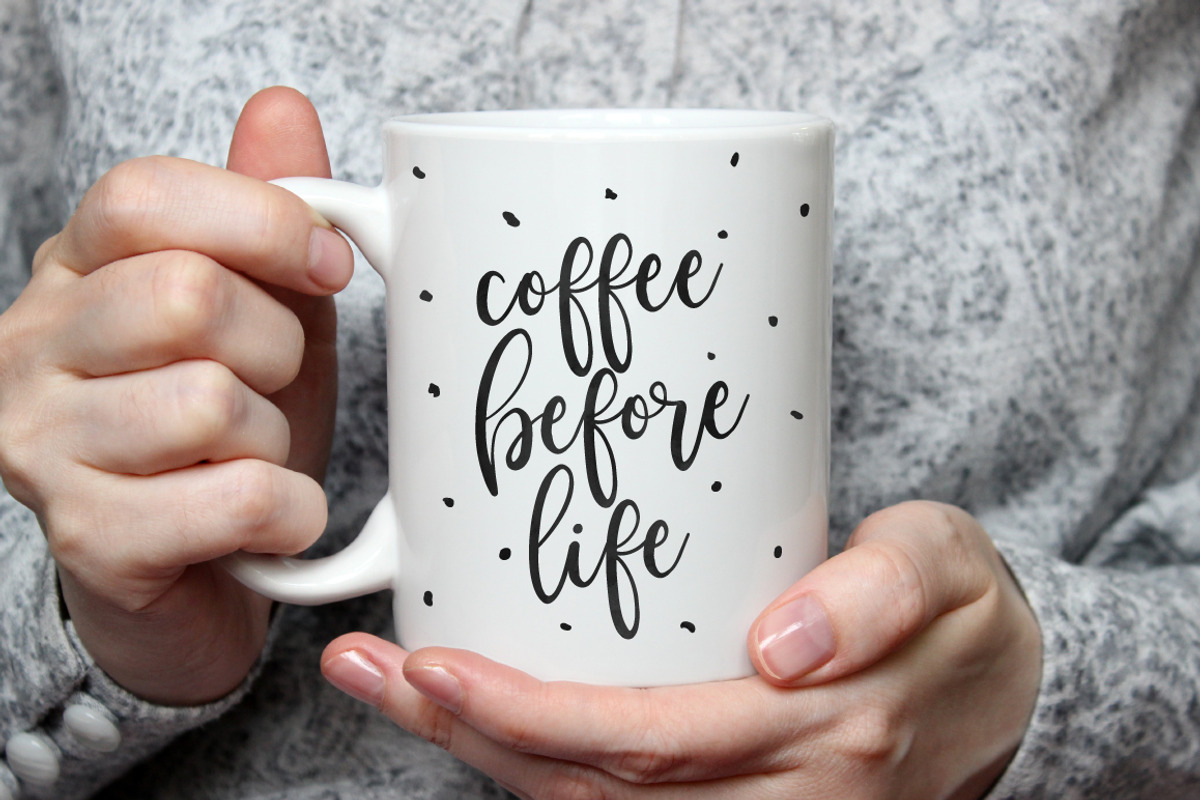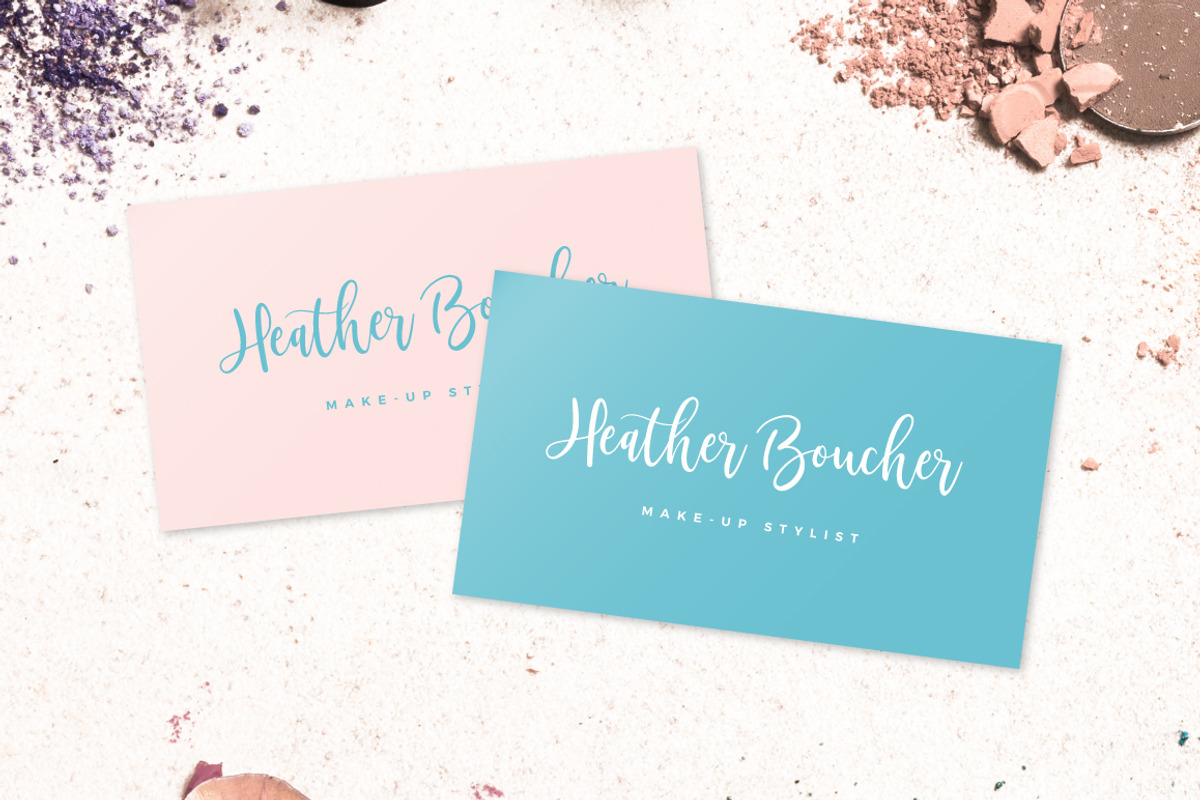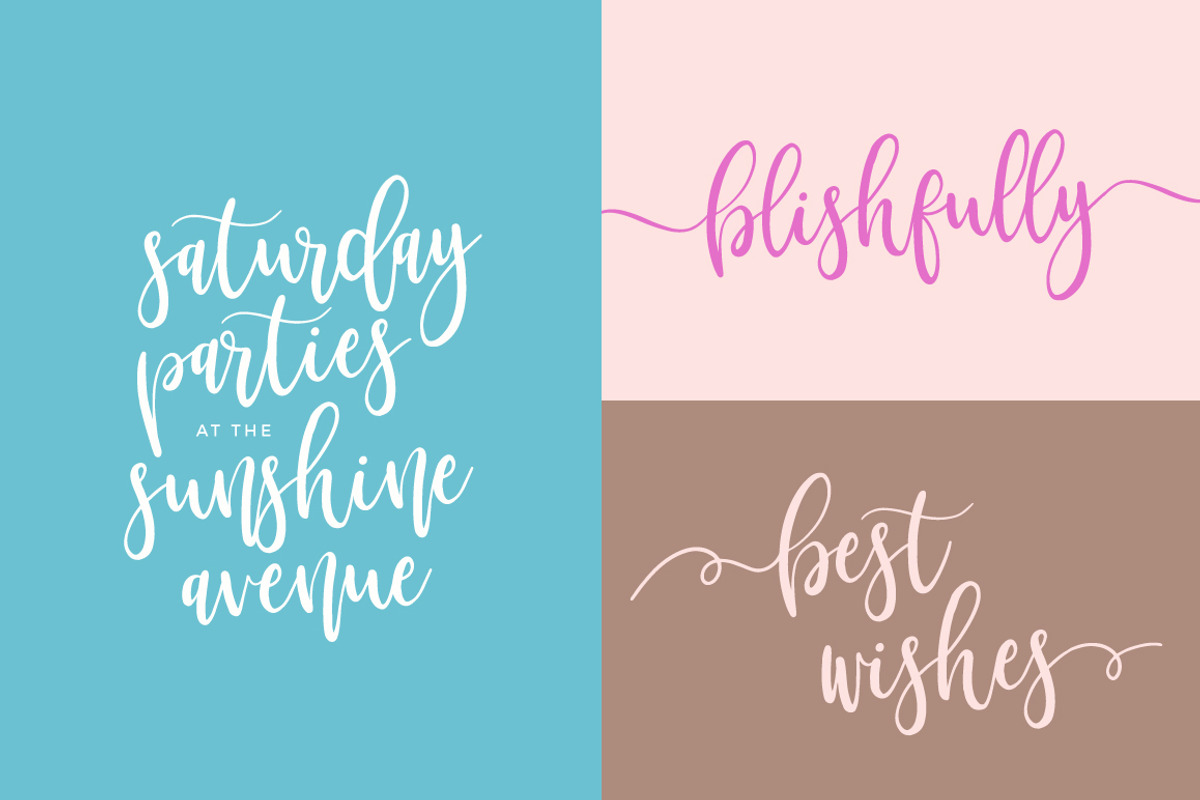
Masterblush Font
Masterblush is a new dazzling script font. It’s an ultra-modern typeface with a tasty flow, snap-perfect characters and start & end swashes. With its alternate characters you’ll instantly get the authentic handmade look to it. I took a careful approach to make it as easy to use as possible and I think it turned out great!
This one should make your designs instantly professional and jaw-dropping! Masterblush includes start and end swashes. At least two for each lowercase character and you can even use them as swooshes. Be a perfect professional in a minute and start creating modern designs like ads, sales, logos, branding, posters, social media text overlays today!